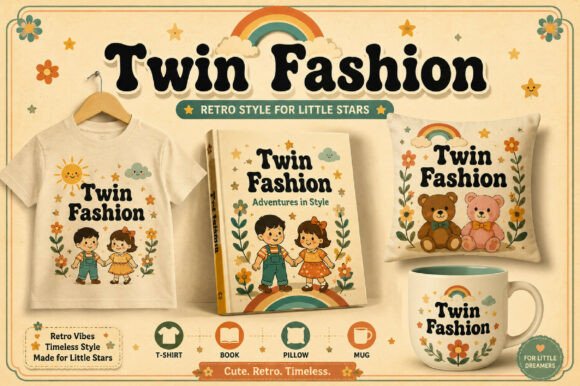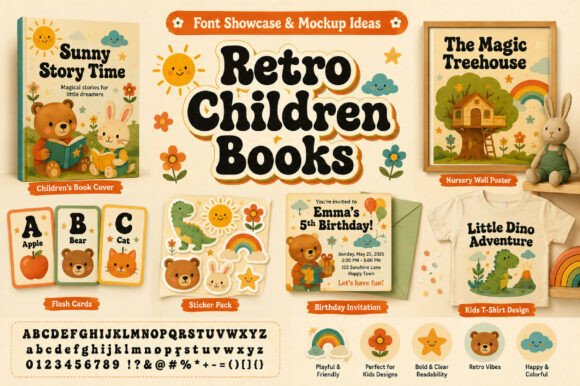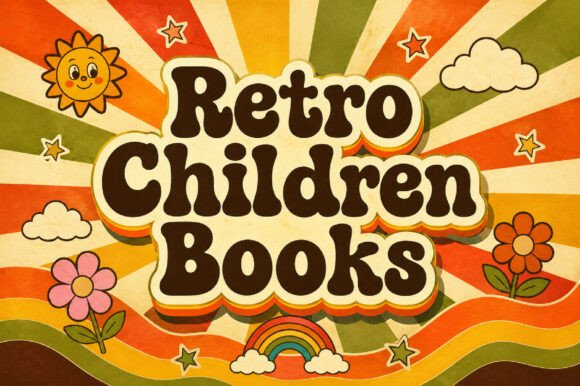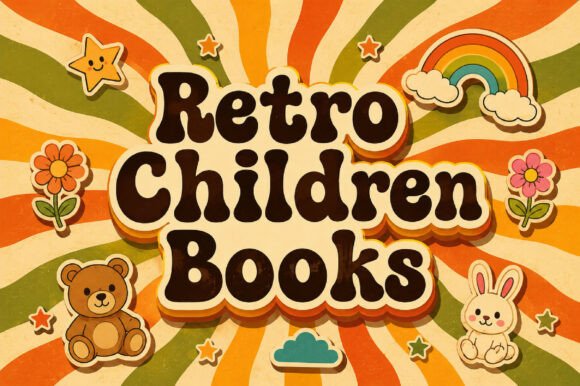
Introduction to Retro Children Books Font
Immerse your designs in the cheerfulness of yesteryears with the Retro Children Books vintage display font.
Deriving its spirit and form from the endearing lettering seen in classic childrenโ€™s tales, this font effortlessly enhances projects with a playful charm that seizes attention and amplifies delight Retro Children Books exudes an antiquated yet relaxed allure due to its rounded edges, chunky curves, and vintage letterforms.
Key Features of Retro Children Books Font
Why Choose Retro Children Books Font?
Retro Children Books Font offers exceptional quality and versatility, making it a valuable addition to your design toolkit. Whether you’re creating for personal projects or commercial use, Retro Children Books Font delivers professional results.